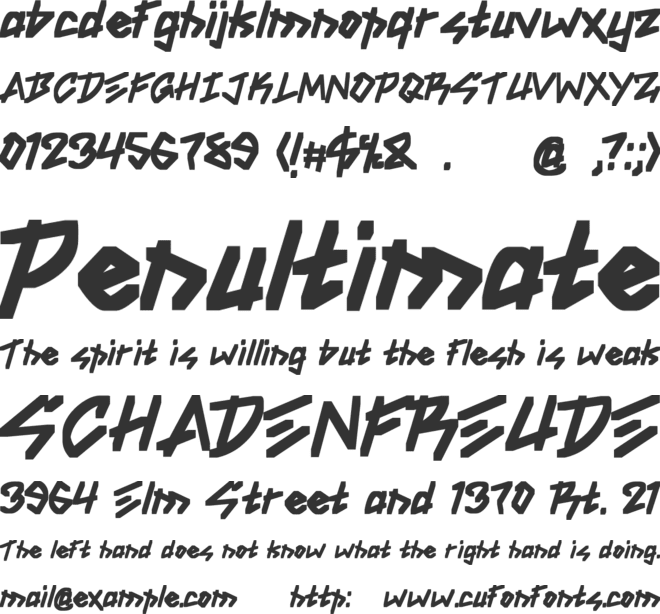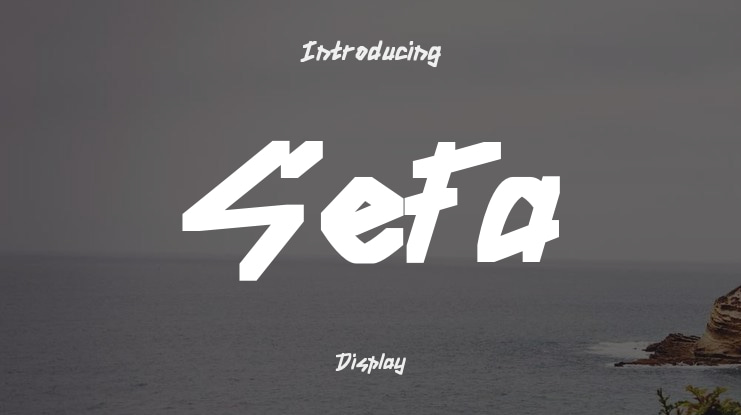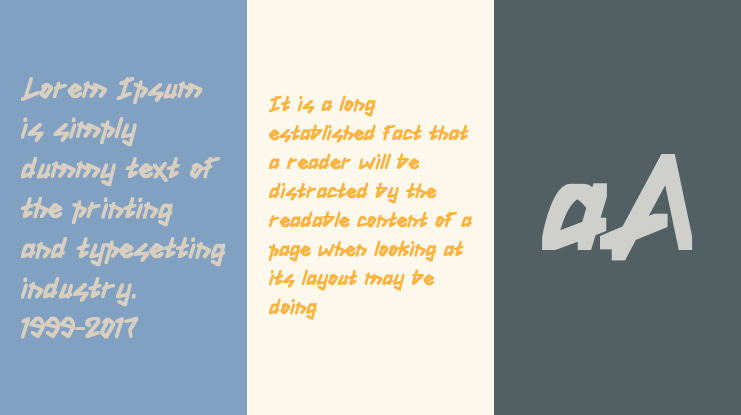
Introducing **Sefa - Graffiti Tech Font**
This Font can be used for any variety of purposes, such as:
Event, Social Media Feed,Flyer, Packaging Products, Logo Type, Branding, T-Shirt Design, Website/Blog, Headline Magazine, Brochures and also can be used for other purpose.
This Font Template contains Future,Urban, Street Art, Creative, Professional and Unique Concept.